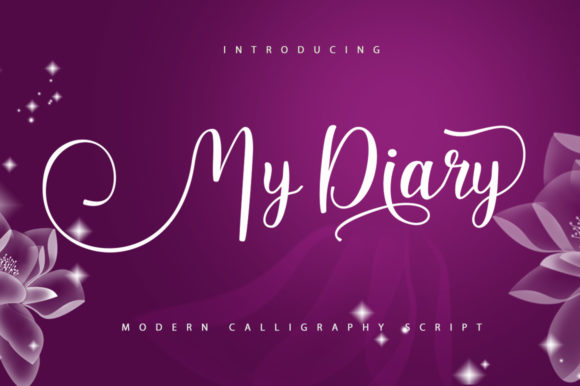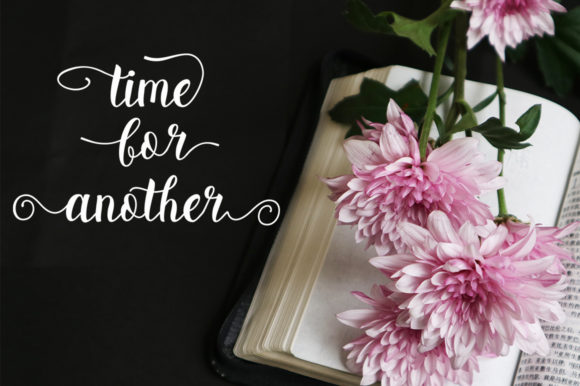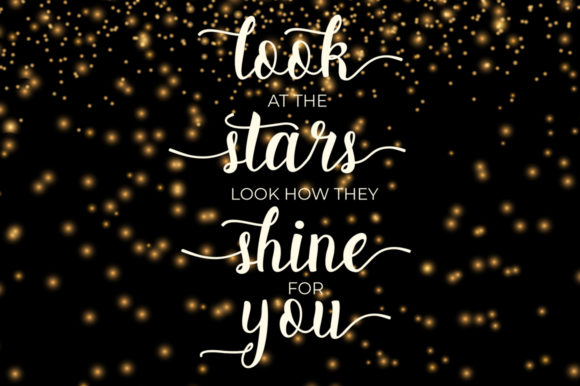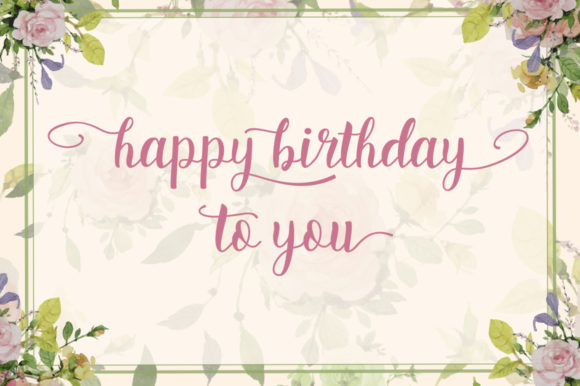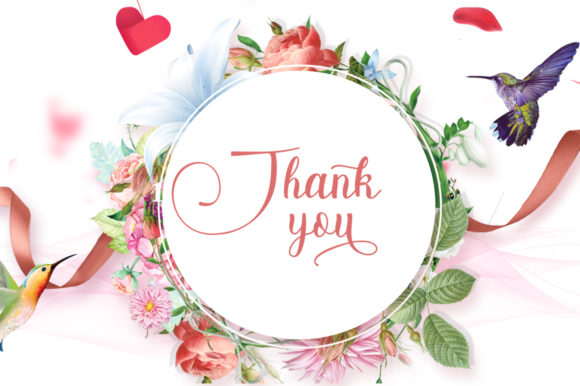
My Diary Font
About My Diary Font
My Diary is a sweet and delicious handwritten font with a distinctly vibrant feel! It will effortlessly elevate any crafting idea.